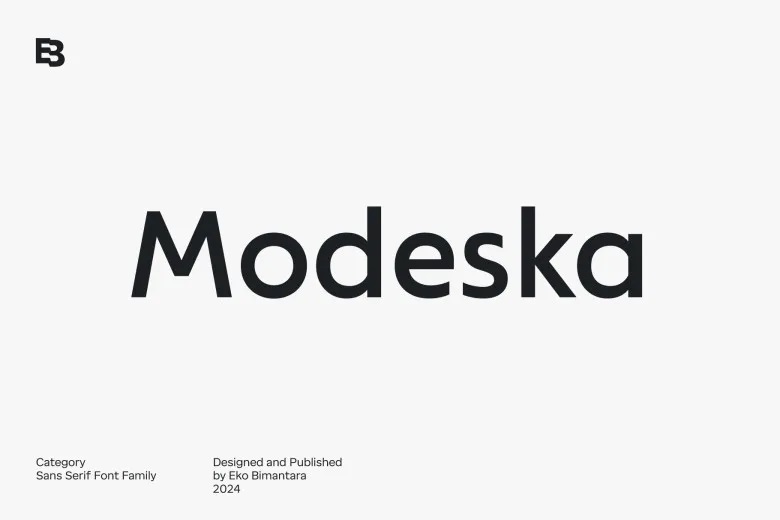
Modeska Font
Modeska is a modern sans-serif font by Eko Bimantara. It combines classic and humanistic elements, giving it a look that is both precise and timeless. The family comes in 18 styles.
Modeska is versatile and works well for displays, large headings, and headers. It also fits easily into layouts, logos, websites, brand identities, and packaging. Its flexibility makes it a strong choice for web projects.
Modeska Sans Serif Font